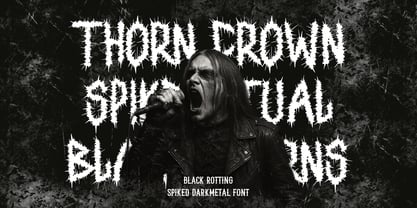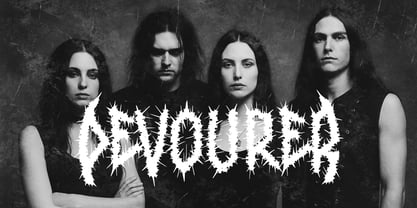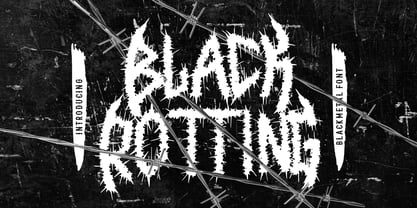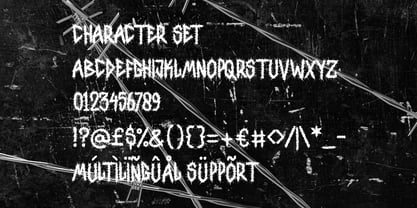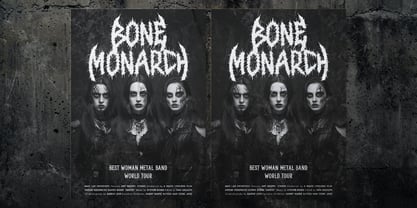
Black Rotting
by Putracetol
The Black Rotting Font Family was designed by Putra Novembria Candra Kusuma and published by Putracetol. Black Rotting contains 1 styles. More about this family
Black Rotting Spiked Darkmetal Font is a brutal display typeface built to express intensity, darkness, and raw underground energy. The letterforms feature sharp spikes, thorn-like extensions, and irregular edges that feel aggressive and untamed. Each character appears dense and compact, with uneven contours that create a rough visual rhythm. The structure leans toward bold and heavy proportions, while narrow inner spaces enhance a claustrophobic and oppressive tone. Subtle distortion across strokes adds a decayed texture, giving the font a hostile and organic presence. Vertical stress dominates the shapes, helping letters stand firm and imposing in large-scale compositions. This construction makes the typeface visually loud without relying on ornamentation, allowing form alone to communicate brutality. The overall appearance feels chaotic yet controlled, suitable for designers who want extreme character without sacrificing clarity at headline sizes. Black Rotting Spiked Darkmetal Font is designed for logos, branding, and visual identities that demand authority and darkness. It works exceptionally well for metal band logos, album titles, tour posters, and underground merchandise. The sharp silhouettes grab attention instantly, making the font ideal for headlines, posters, stickers, and packaging designs. Its aggressive tone supports themes related to darkmetal, blackmetal, deathmetal, and hardcore music cultures. The font also performs strongly in film titles, book covers, magazine headers, and promotional visuals that require a threatening or rebellious mood. Despite its extreme appearance, spacing remains balanced enough for short phrases and impactful words. Black Rotting Spiked Darkmetal Font empowers designers to communicate power, danger, and intensity through typography alone. This font becomes a visual weapon for projects that refuse to feel safe or ordinary.